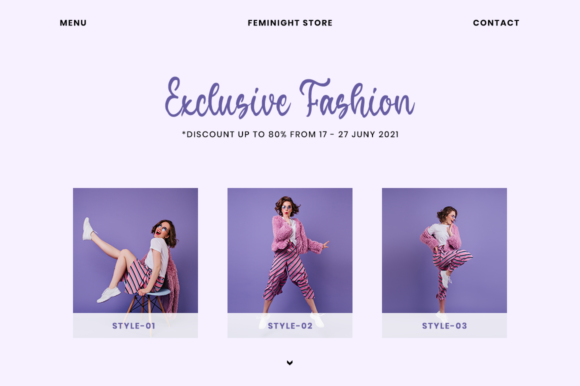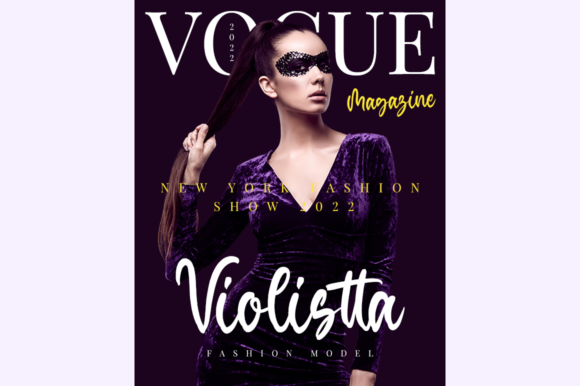
Priscilla Font
db-ku.com - Script & Handwritten -- Priscilla is a chic, refined script font that emanates sophistication and elegance. Its stylish alternates and ligatures make this font the perfect match for any project.